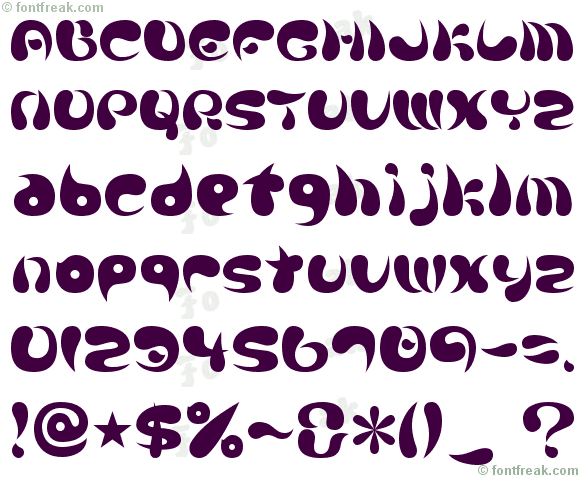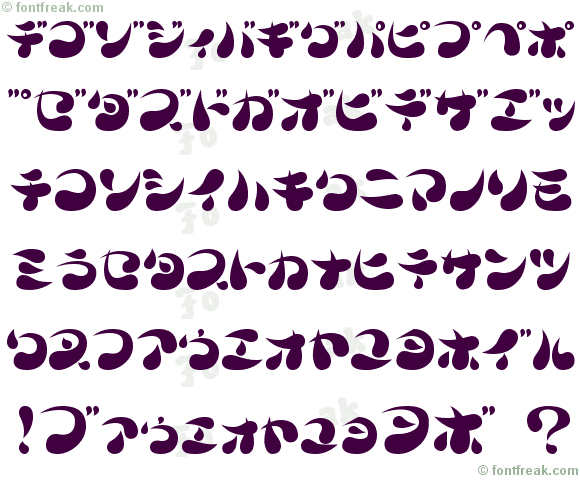
Parade20A
Parade20K
Parade 20A by Maniackers Design is a captivating display font that exudes a charming and playful essence. This freeware typeface, created by Masayuki Sato in 1999, features a unique blend of whimsical curves and bold strokes, making it an eye-catching choice for various creative projects. Parade 20A showcases a moderate stroke weight with a delightful contrast that adds depth to its letters, while its generous spacing enhances readability, ensuring that your message stands out without overwhelming the viewer. The font's decorative elements, including rounded edges and slightly exaggerated forms, contribute to its playful character, making it a favorite among graphic designers and content creators alike.
This versatile font is ideal for a range of applications. It works beautifully for wedding invitations, where its lighthearted style can convey joy and celebration. Additionally, Parade 20A is well-suited for movie posters, particularly for family-friendly films or animated features, as it captures a sense of fun and adventure. Restaurant menus can also benefit from the font's unique flair, drawing attention to the dish names and enticing customers with its inviting design. Moreover, it can enhance branding materials for small businesses looking to establish a memorable identity.